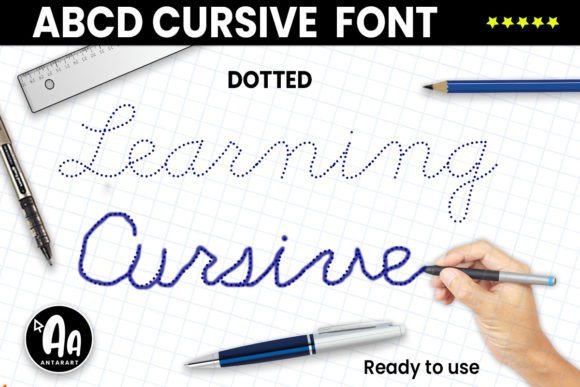
The Joy of Cursive Handwriting: Unlocking Creativity with Abcd Cursive Dotted Font
Do you remember the feeling of dipping your pen in ink and watching as beautiful, flowing letters emerged on the page? For many of us, the art of cursive handwriting is a nostalgic and creative outlet that brings us joy and relaxation. Whether you’re a parent, teacher, or designer, there’s a way to tap into this sense of wonder and make cursive handwriting a fun and interactive experience.
Enter Abcd Cursive Dotted Font, a versatile and user-friendly font that’s perfect for creating thousands of worksheets and learning resources. With this font, you can easily create engaging and interactive materials that make learning cursive handwriting a breeze. For designers, Abcd Cursive Dotted Font is a valuable tool that can be used in a variety of projects, from educational materials to marketing campaigns.
Abcd Cursive Dotted Font Key Features
- Font Family: Abcd Cursive Dotted Font
- Unique Characteristics: Cursive, dotted font style with a unique, hand-drawn feel; ideal for creative and artistic applications
Designer Review: Abcd Cursive Dotted Font
Overall, I have mixed feelings about the Abcd Cursive Dotted Font. While it has some lovely features, it also has some limitations that make it less than ideal for certain applications.
- ✨ The font is beautifully crafted with a smooth, flowing style that is perfect for adding a touch of elegance to your designs.
- ✨ The dotted texture adds a nice visual interest and can help to create a sense of depth and dimension.
- ✨ The font is highly customizable, with a range of options for adjusting the size, color, and spacing of the letters.
- ⚠️ The font can be quite busy and overwhelming, especially when used in large blocks of text.
- ⚠️ The dotted texture can make the font difficult to read in certain situations, such as when the text is small or when the background is busy.
- ⚠️ The font may not be suitable for use in situations where a clear, concise message is required.
While the Abcd Cursive Dotted Font has some lovely features, I would not recommend it for all types of projects. It’s best suited for situations where a decorative, eye-catching font is needed, such as in titles, headings, or other design elements where the text is not the primary focus.
Abcd Cursive Dotted Font is ideal for creating beautiful and elegant designs, such as:
– Artistic quotes and posters
– Children’s book illustrations
For the most effective use of this font, keep the following tips in mind:
– Use it sparingly to avoid overwhelming the design
– Pair it with bold or sans-serif fonts for contrast
– Experiment with different font sizes and colors to achieve the desired effect
Alternatives to Abcd Cursive Dotted Font
Lobster is a script font that resembles handwriting. It’s ideal for titles, headings, and short text passages where a touch of elegance is required. When to use: fashion, lifestyle, and creative projects. Lobster is more decorative and has a more flowing feel compared to Abcd Cursive Dotted Font.
Pacifico is a modern script font that features a relaxed, casual feel. It’s perfect for branding, logos, and body text where a friendly tone is desired. When to use: travel, food, and wellness projects. Pacifico is more laid-back and has a softer feel compared to Abcd Cursive Dotted Font.
Great Vibes is a elegant script font that’s suitable for formal and informal projects. It’s ideal for titles, headings, and short text passages where a touch of sophistication is required. When to use: weddings, events, and luxury projects. Great Vibes is more refined and has a more dramatic feel compared to Abcd Cursive Dotted Font.
Dancing Script is a lively script font that’s perfect for creative and playful projects. It’s ideal for titles, headings, and short text passages where a touch of whimsy is required. When to use: children’s projects, party invitations, and entertainment projects. Dancing Script is more energetic and has a more dynamic feel compared to Abcd Cursive Dotted Font.